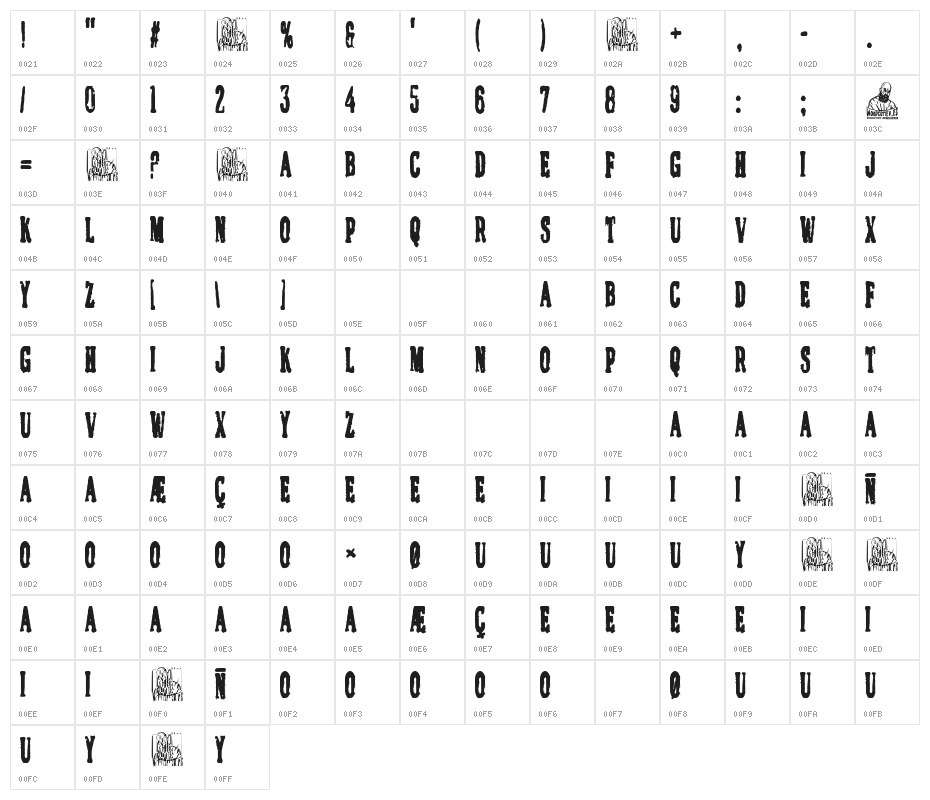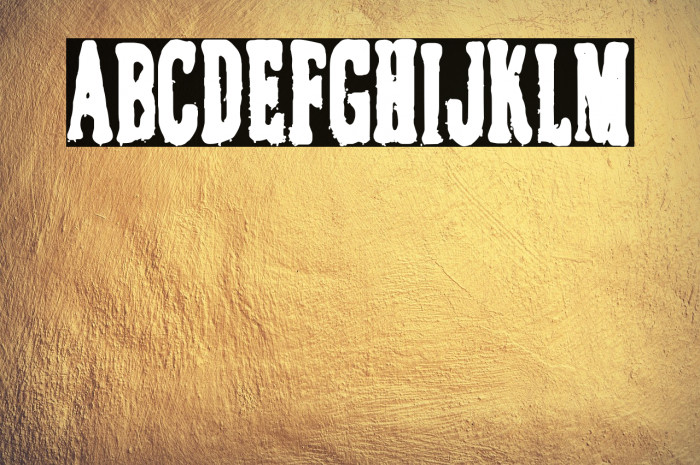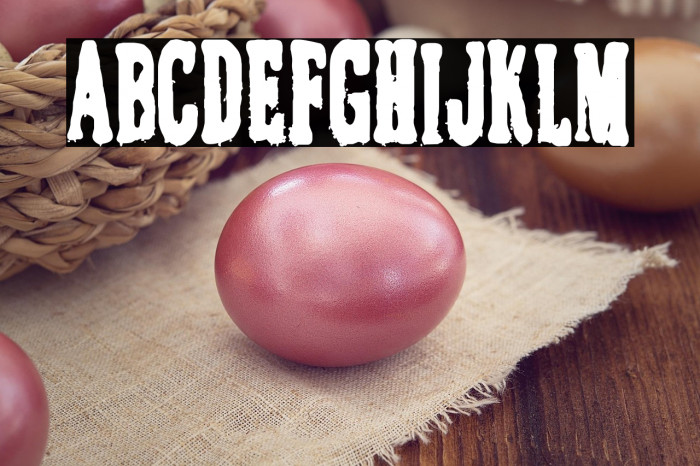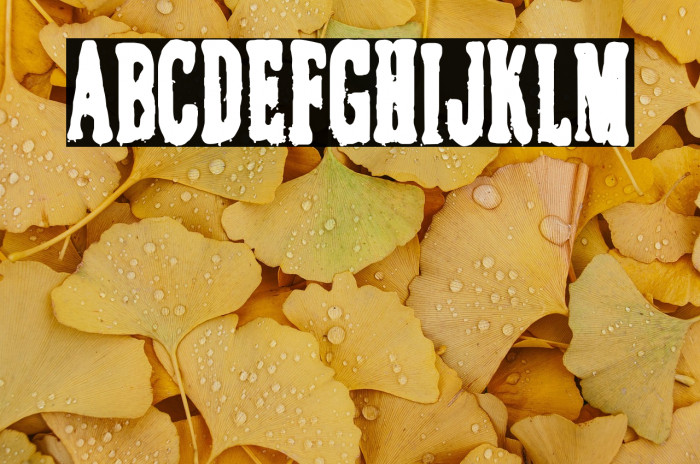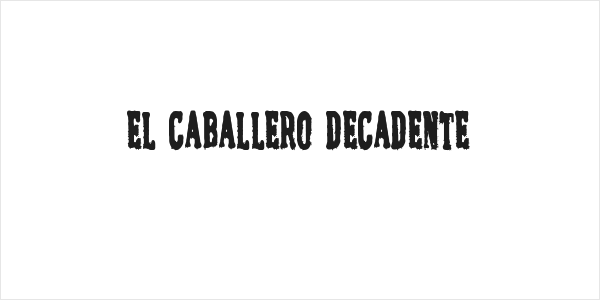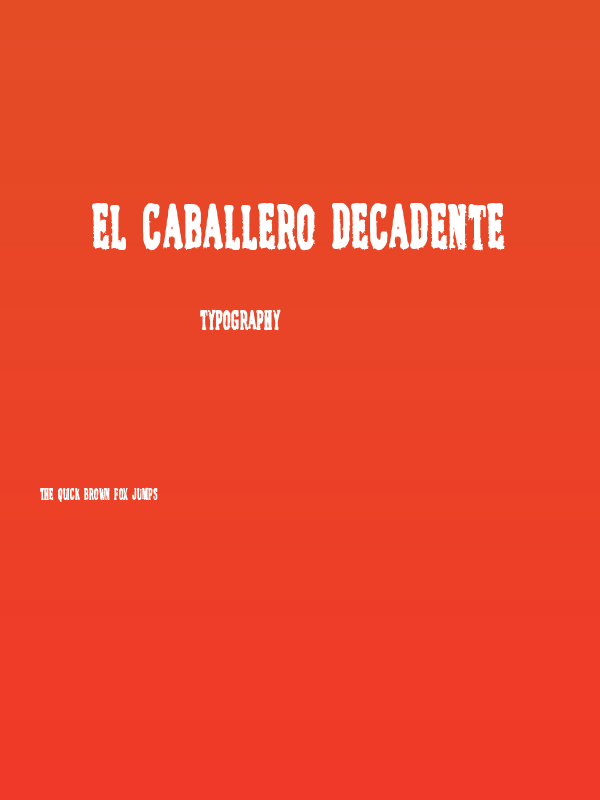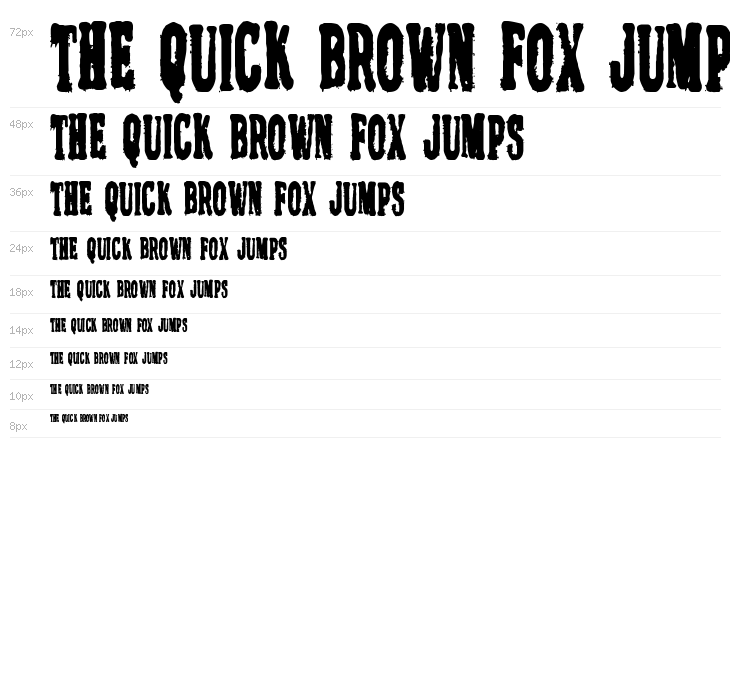
El Caballero Decadente Font
El Caballero Decadente Description
This font features a bold and rugged design, characterized by its distressed and textured appearance. The letters have an uneven, hand-crafted look, giving them a vintage and weathered feel. The uppercase and lowercase letters maintain a consistent style, with thick strokes and rough edges that suggest a sense of decay or erosion. The numerals and special characters follow the same aesthetic, ensuring a cohesive look across all glyphs. This font's unique style makes it stand out, offering a sense of character and history.
| Proposed Projects | Ideal for projects requiring a vintage or rustic feel, such as posters, album covers, or branding for artisanal products. |